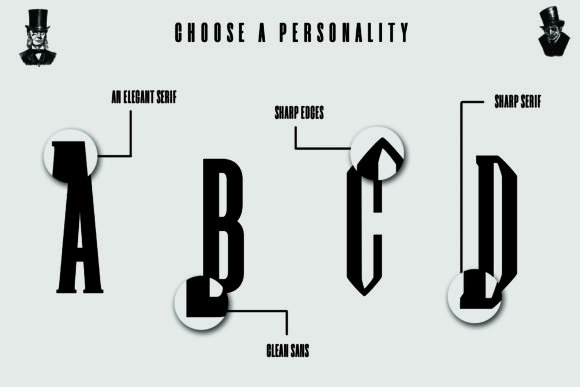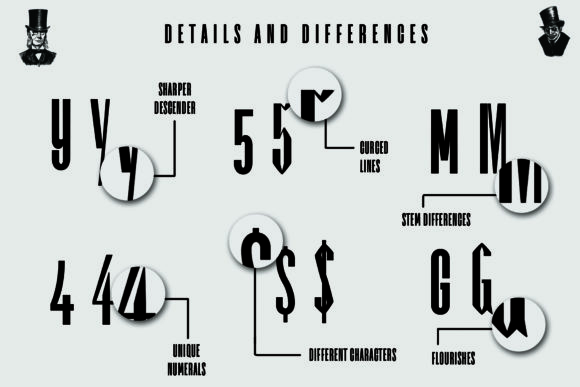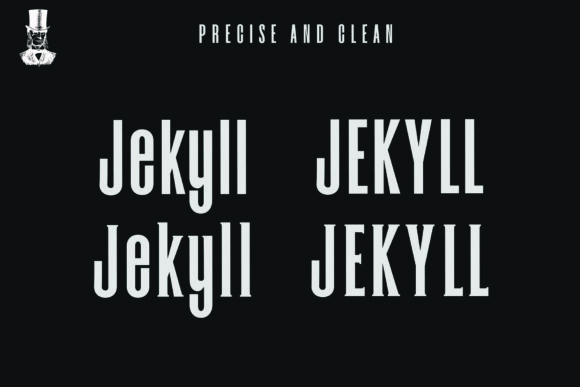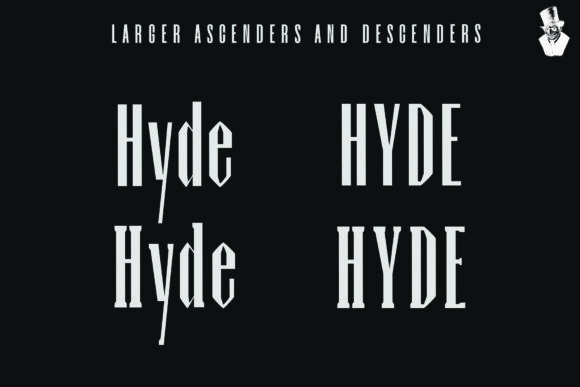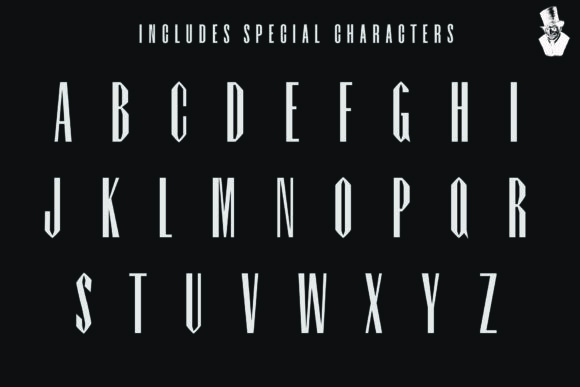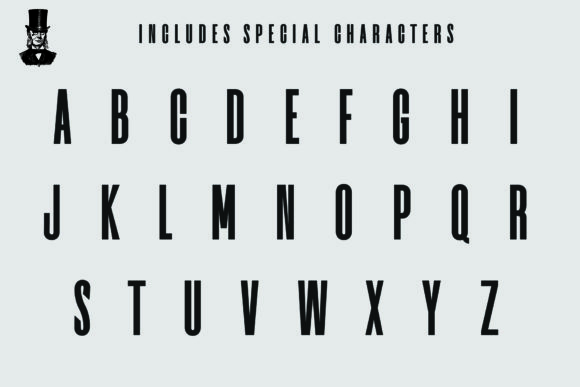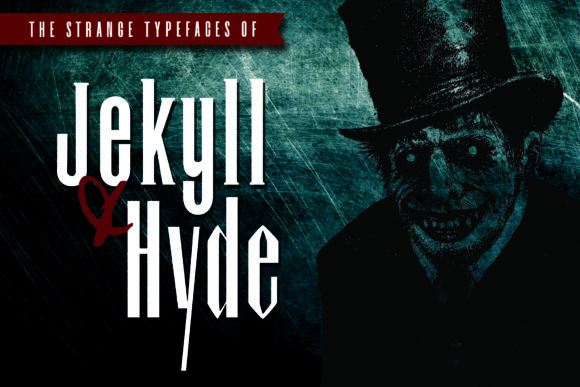
Unleashing the Duality of Type: Exploring the Dr. Jekyll & Mr. Hyde Font
The timeless tale of Robert Louis Stevenson’s Dr. Jekyll and Mr. Hyde has captivated readers for generations with its exploration of the dual nature of human beings. This classic story has inspired countless adaptations and interpretations across various art forms, including typography. Inspired by this classic story, Jekyll & Hyde is a unique typeface pair that combines the simple yet elegant style of Dr.Jekyll with the sharp and mysterious style of Mr.Hyde.
The Birth of a Dual Typeface
The Jekyll & Hyde font duo is a creative response to the contrasting personalities of the two main characters in the novel. Dr. Jekyll, the respectable and refined scientist, and Mr. Hyde, the dark and mysterious alter ego, are brought to life through two distinct typefaces. This dual-font pairing allows designers to explore the intriguing contrast between order and chaos, elegance and edginess, in their creative projects.
Dr. Jekyll: The Epitome of Elegance
The Dr. Jekyll typeface embodies the characteristics of the respectable and dignified Dr. Jekyll. With its clean lines, classic proportions, and elegant curves, this font exudes a sense of sophistication and refinement. It is perfect for designs that require a touch of luxury, tradition, and reliability. The Dr. Jekyll font is versatile and can be used in a variety of contexts, from high-end branding and editorials to elegant packaging and wedding stationery.
Mr. Hyde: The Embodiment of Mystery
In stark contrast to the refined Dr. Jekyll, the Mr. Hyde typeface personifies the dark, mysterious, and somewhat menacing persona of the alter ego. Characterized by sharp edges, condensed letterforms, and an air of unpredictability, the Mr. Hyde font adds an element of intrigue and boldness to any design. It is ideal for projects that require a sense of danger, mystery, or rebellion, making it a great fit for posters, album covers, and experimental typography.
Combining Jekyll & Hyde for Creative Impact
The true power of the Jekyll & Hyde font duo lies in their combination. By pairing the elegant Dr. Jekyll with the bold Mr. Hyde, designers can create striking visual contrasts that capture the complexity and duality of the human experience. This typeface pairing encourages creativity and experimentation, allowing designers to push the boundaries of traditional typography and storytelling.
Applications and Inspirations
The Jekyll & Hyde font duo offers endless possibilities for designers and crafters. Here are a few ideas to get started:
- Branding and Identity: Use Dr. Jekyll for a luxury brand identity and Mr. Hyde for a more edgy, alternative image.
- Editorial Design: Combine the two fonts for a striking magazine cover or editorial spread that explores themes of duality.
- Packaging: Apply the elegant Dr. Jekyll font to high-end product packaging and Mr. Hyde for a more avant-garde or mysterious product line.
- Art and Illustration: Pair the fonts for a compelling visual narrative in illustrations, posters, or experimental art projects.
The Dr. Jekyll & Mr. Hyde font duo is a unique and versatile typographic tool that allows designers to explore the fascinating contrast between two distinct personalities. Whether you’re aiming to evoke elegance, mystery, or a bit of both, this typeface pair offers a creative avenue to express the complexity of human nature and add depth to your designs. Dive into the world of Jekyll & Hyde and unleash the duality of type in your next creative project.